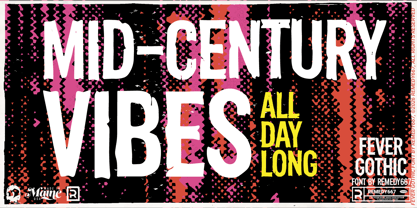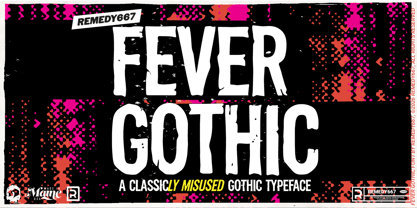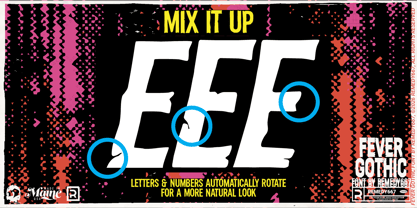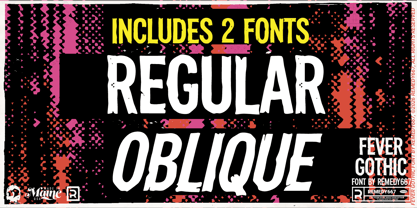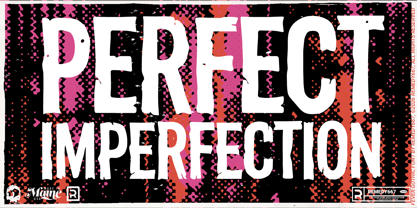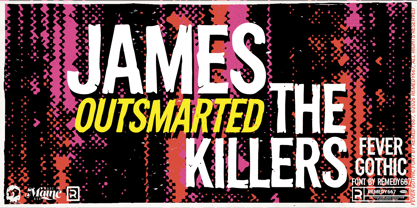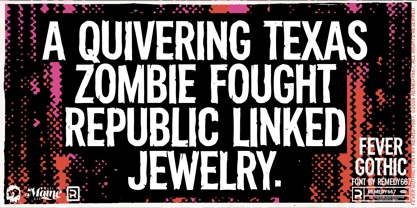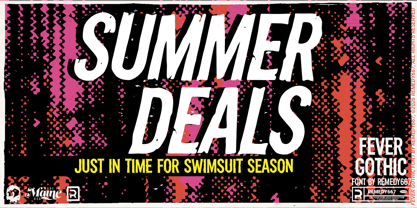
Fever Gothic 667
by Remedy667
The Fever Gothic 667 Font Family was designed by Nick Polifroni and published by Remedy667. Fever Gothic 667 contains 2 styles and family package options. More about this family
Let Fever Gothic infect your designs with a delicious decay! This terrorizing take on a standard Gothic typeface looks as though it’s been bitten by a flesh-eating disease. Once classic… now corroded.
Perfect for when you want a touch of age without losing readability, Fever Gothic balances traditional structure with a horror theme. Available 2 styles, Regular and Oblique, this typeface spreads its disease with versatility.
Features
• Classic Gothic structure with corroded, aged detailing
• Doubles elimination for letters and numbers via OpenType features
• Versatile for both display and general use
• Multilingual support for worldwide decay